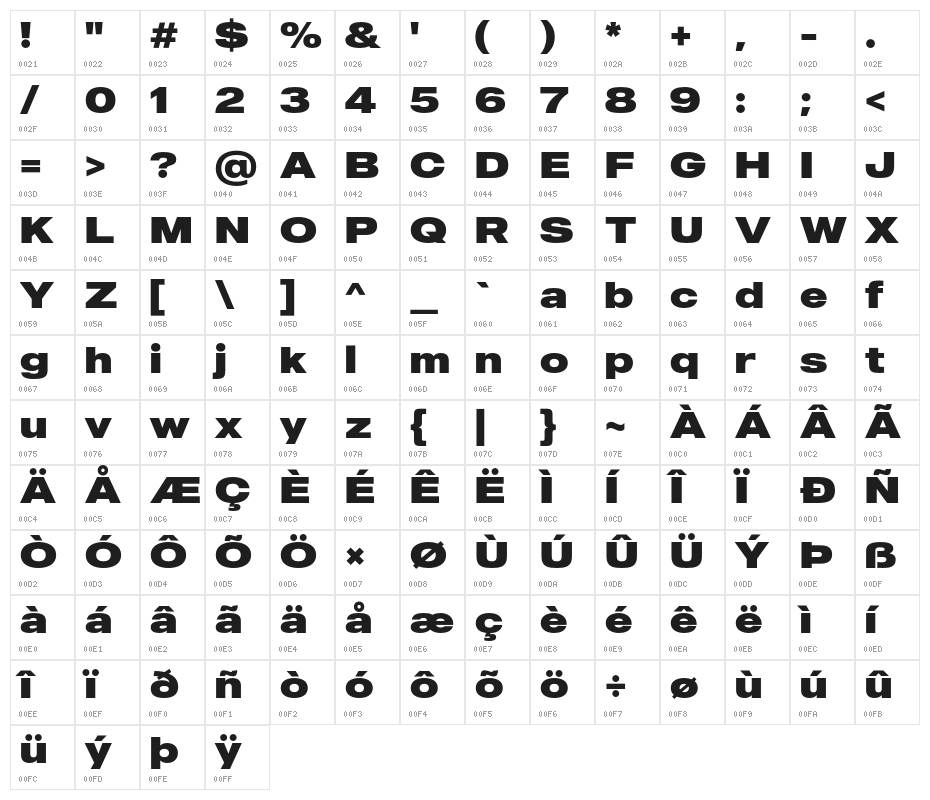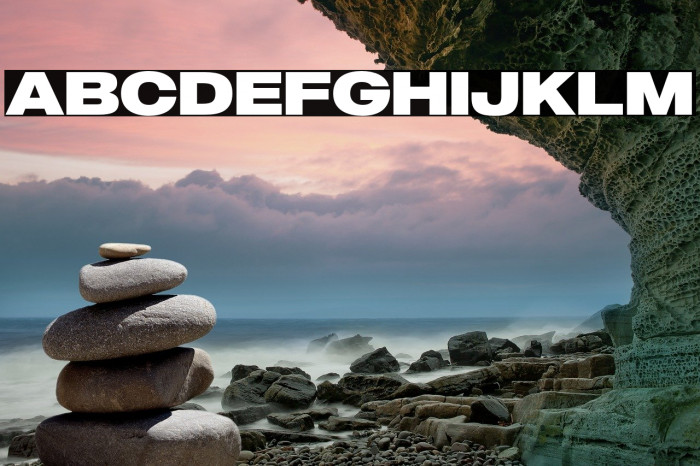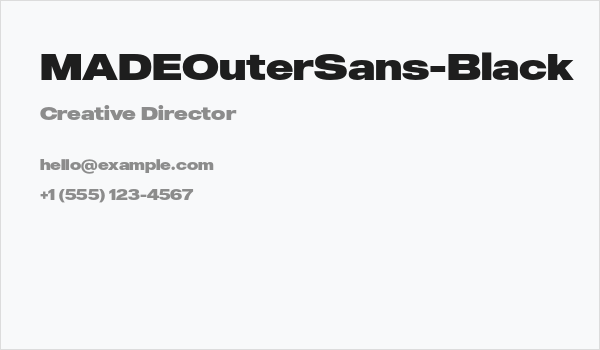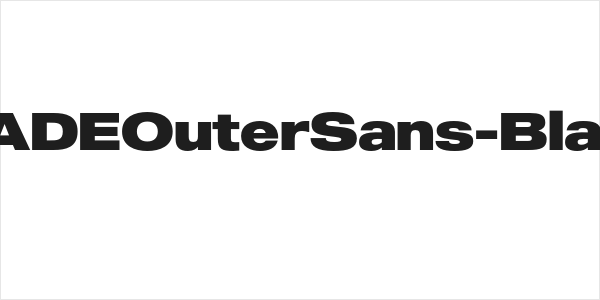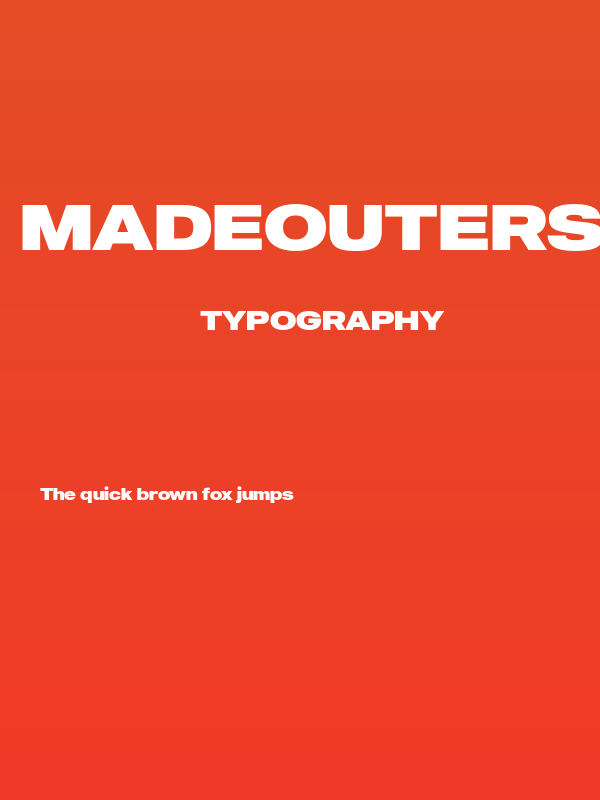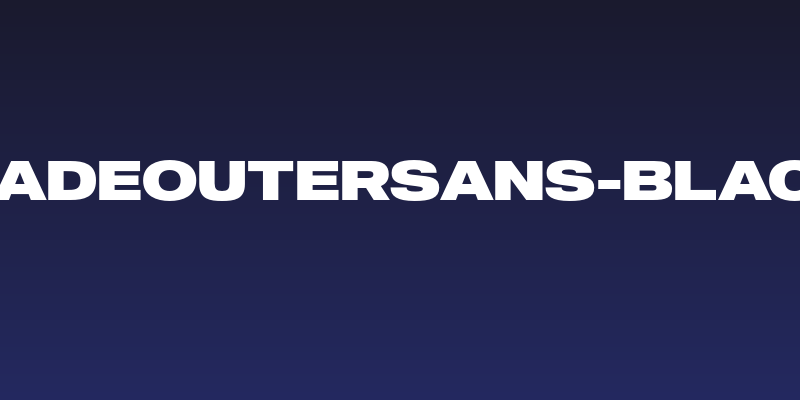
MADEOuterSans-Black Font
MADEOuterSans-Black Description
This font features a bold and modern sans-serif style with a strong presence. The characters are uniformly thick, providing a consistent and powerful look. The uppercase letters are particularly striking, with a geometric and clean design that enhances readability. The lowercase letters maintain the same boldness, ensuring a cohesive appearance across different text cases. The numerals are clear and robust, making them suitable for various applications. Special characters are well-defined, adding versatility to the font's use.
| Proposed Projects | Ideal for branding, headlines, posters, and any project requiring a bold and modern aesthetic. |